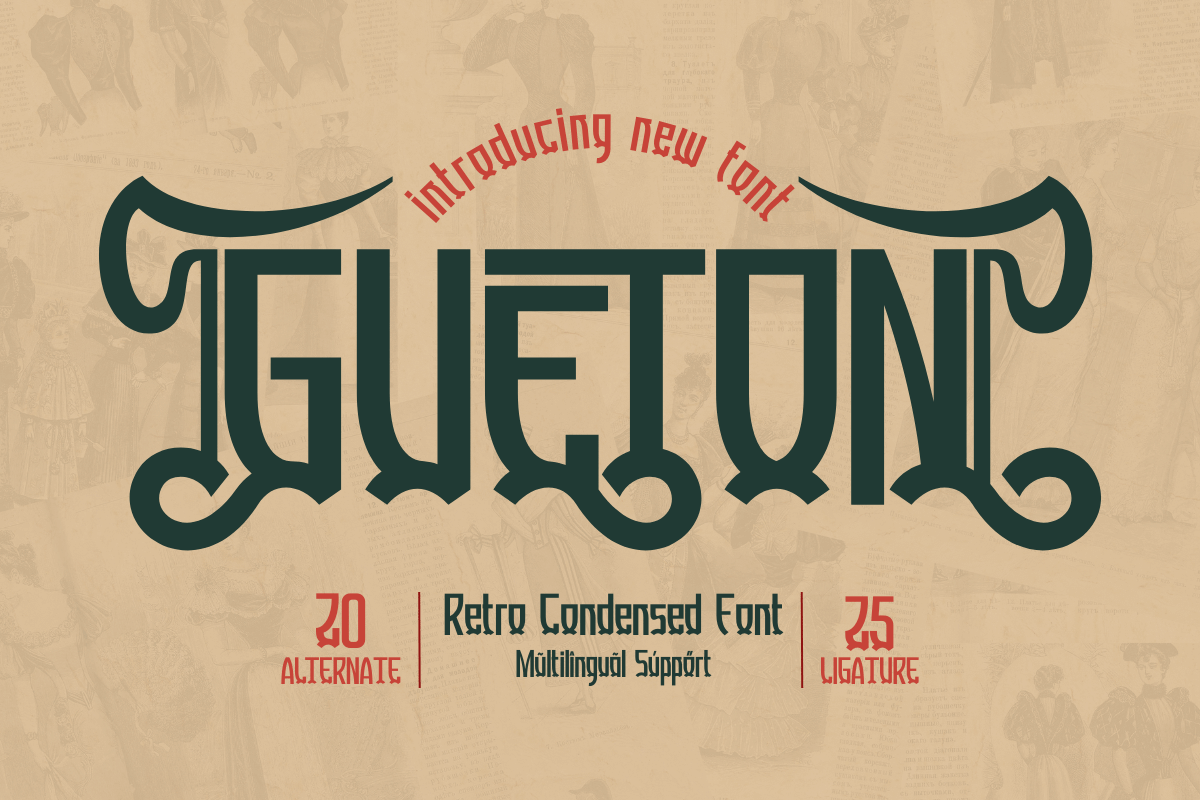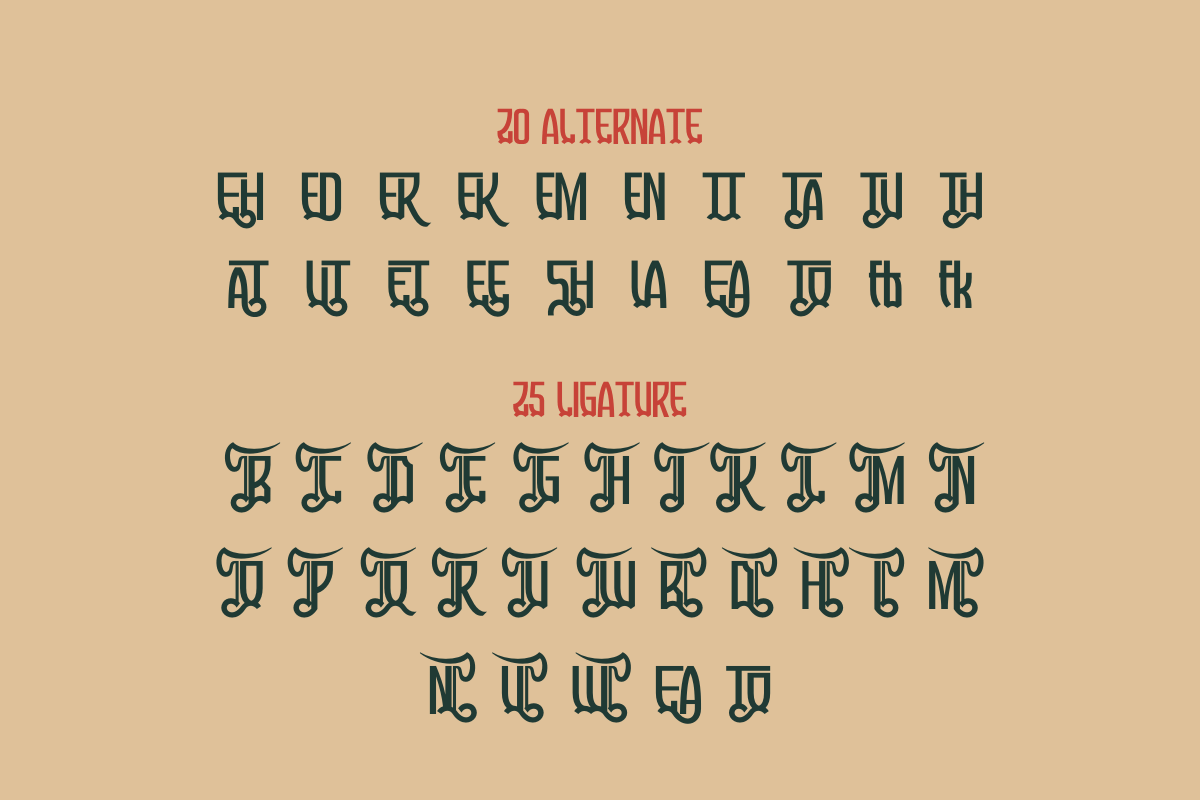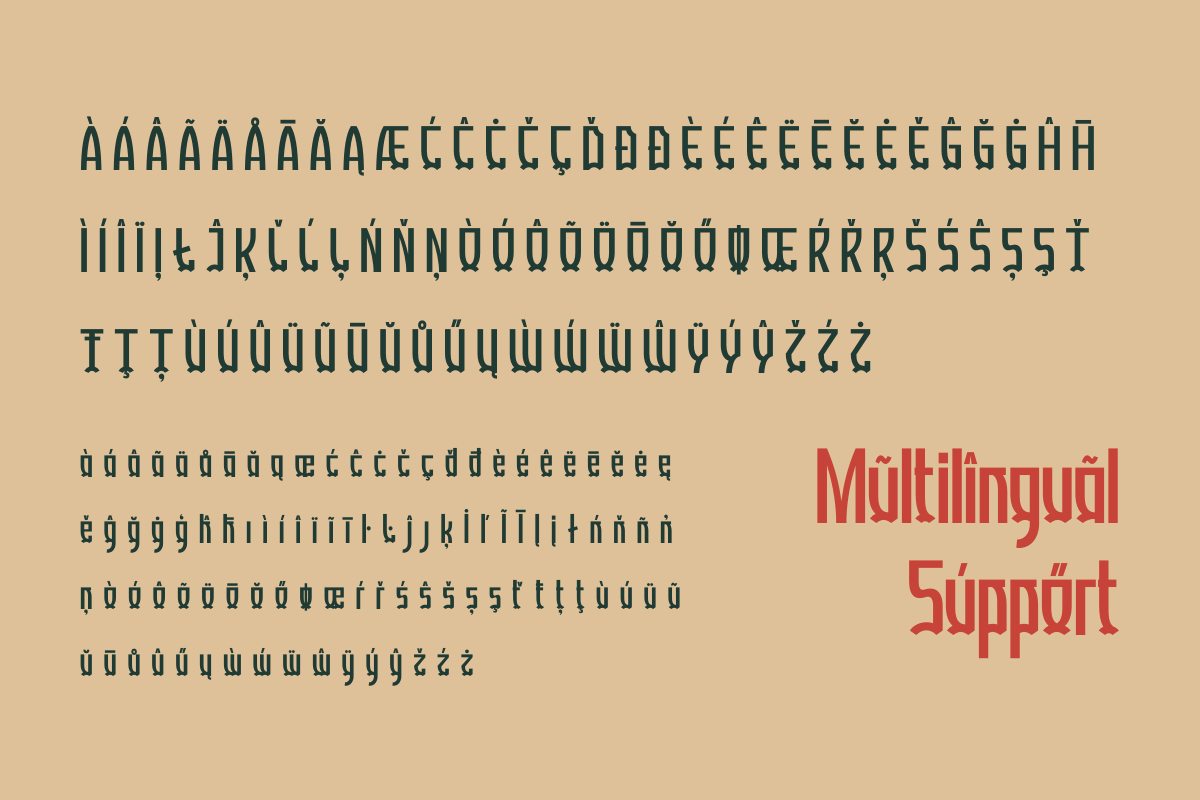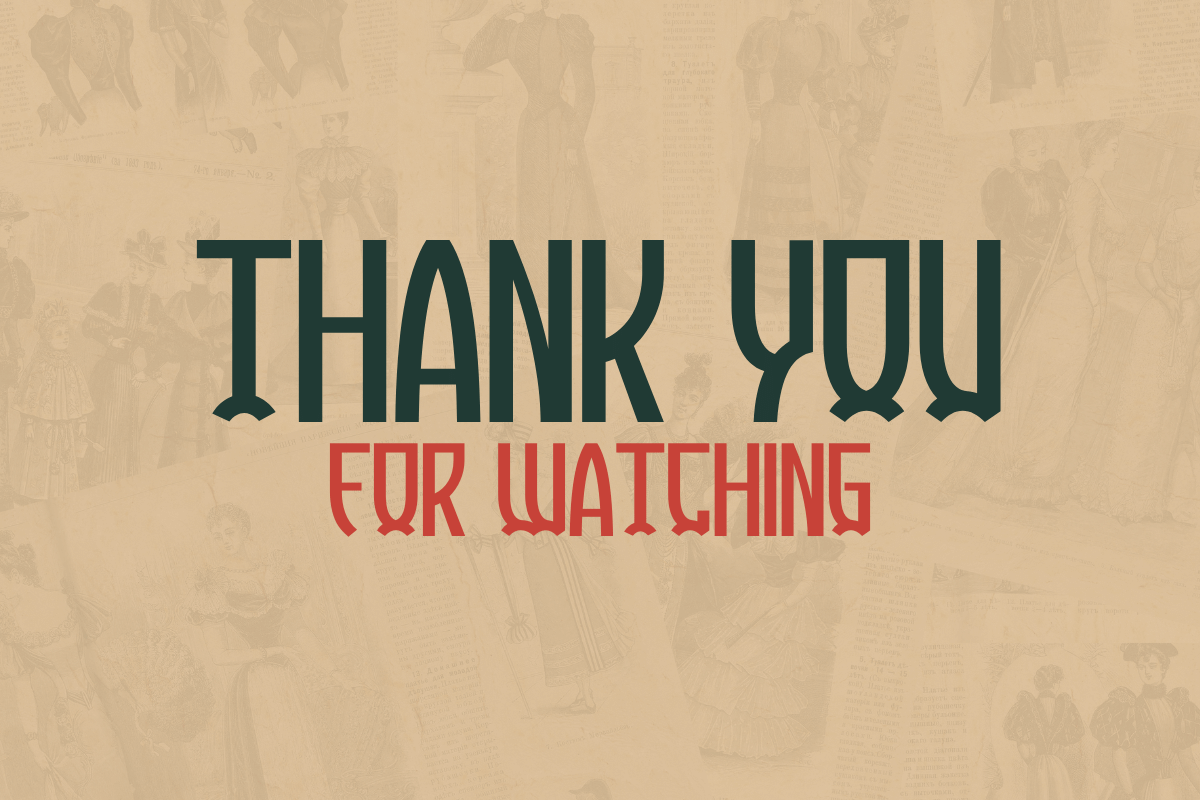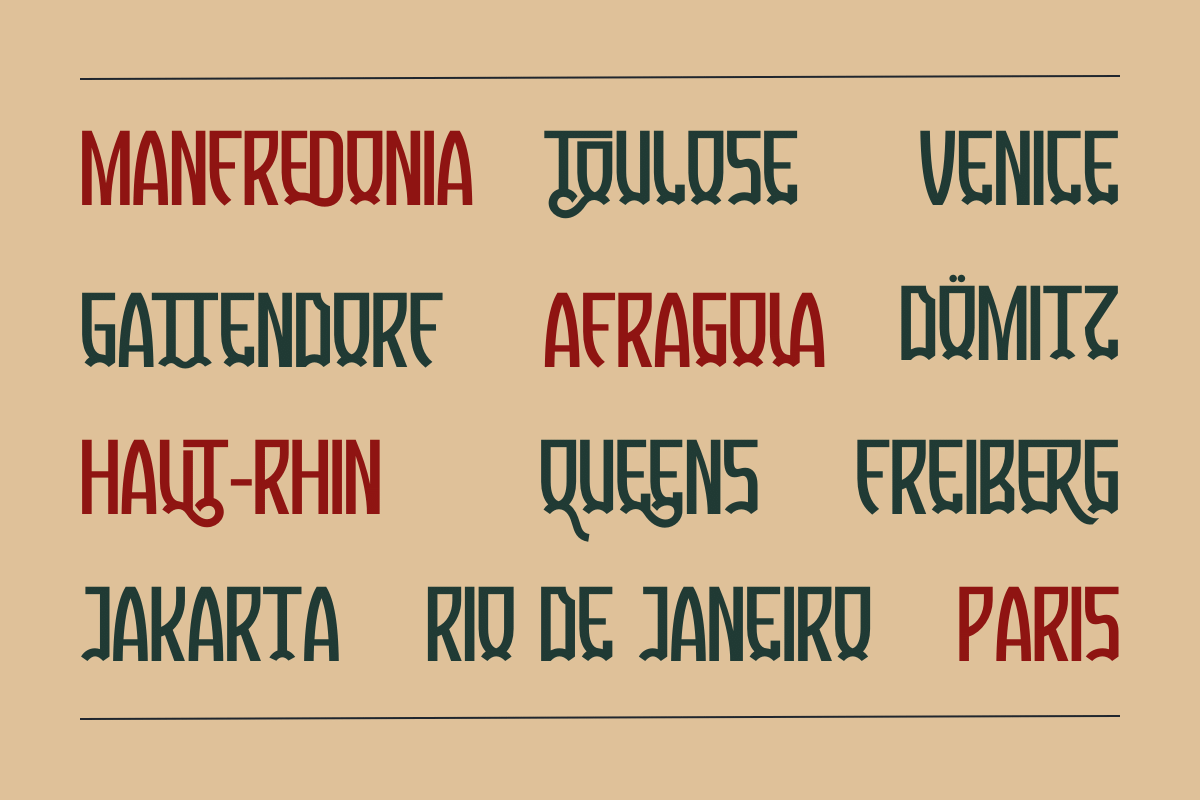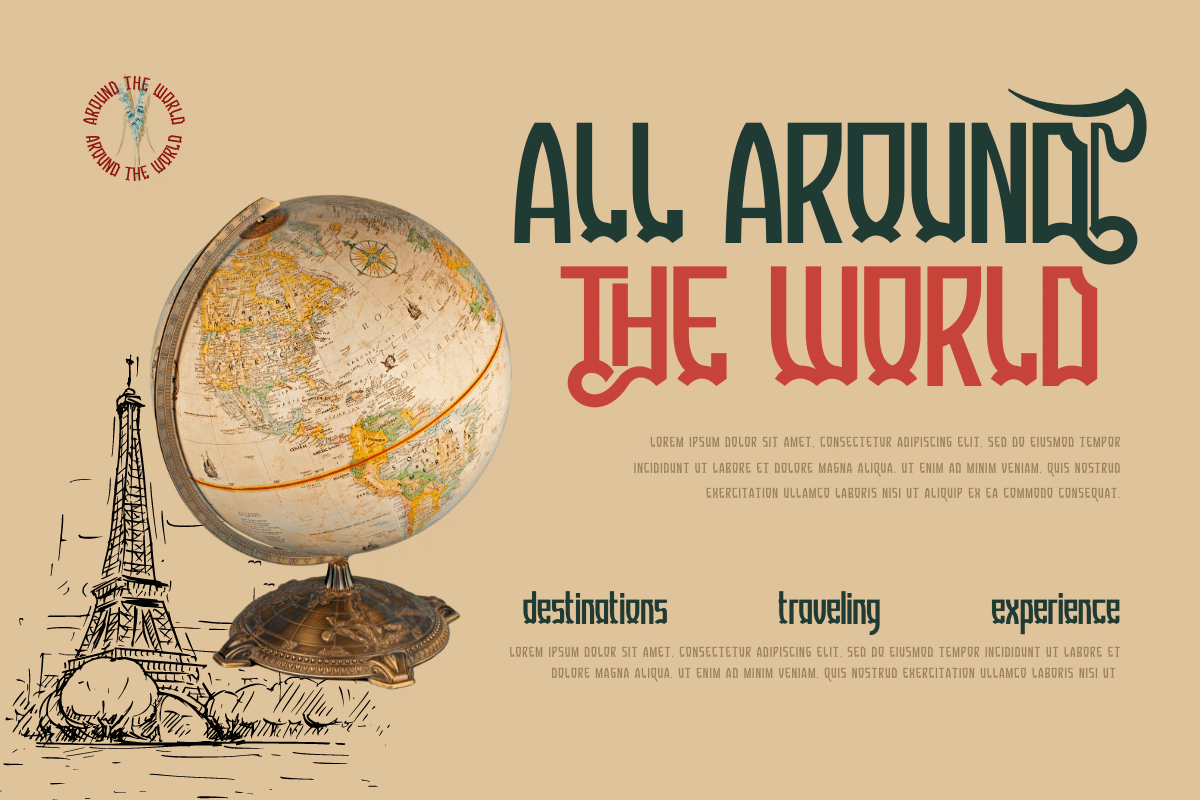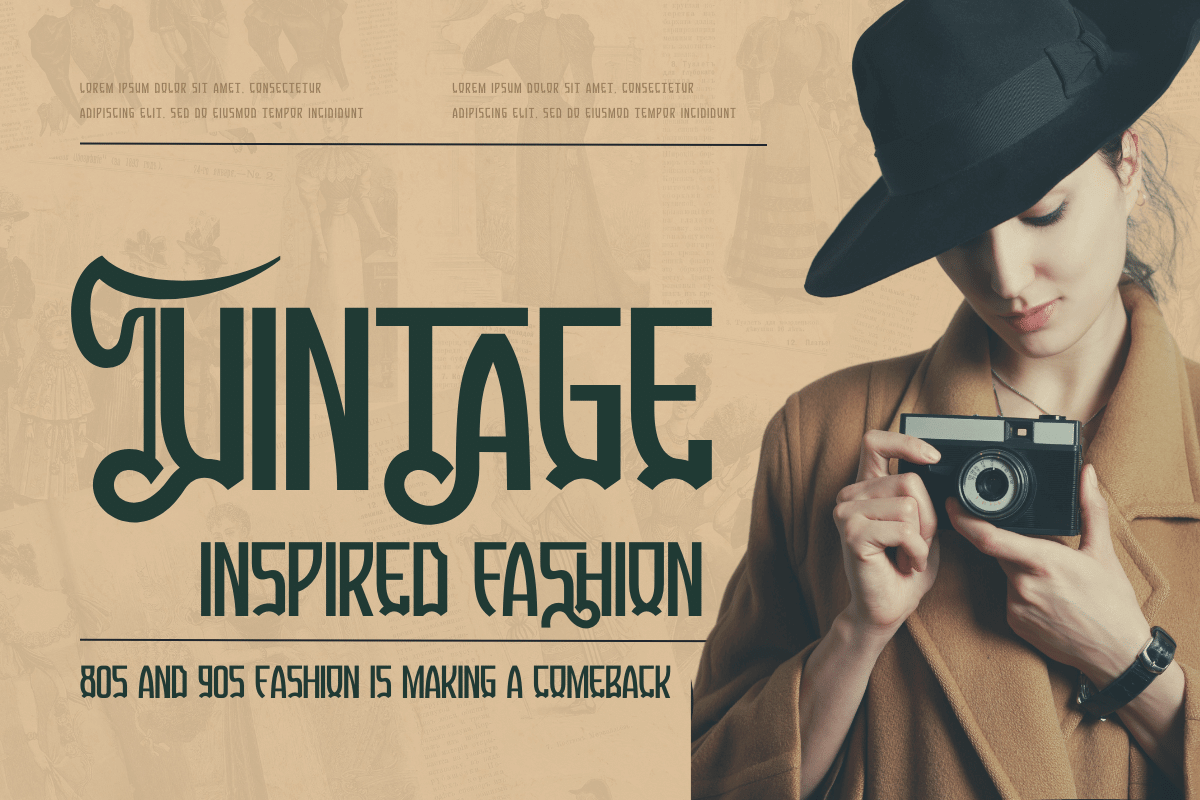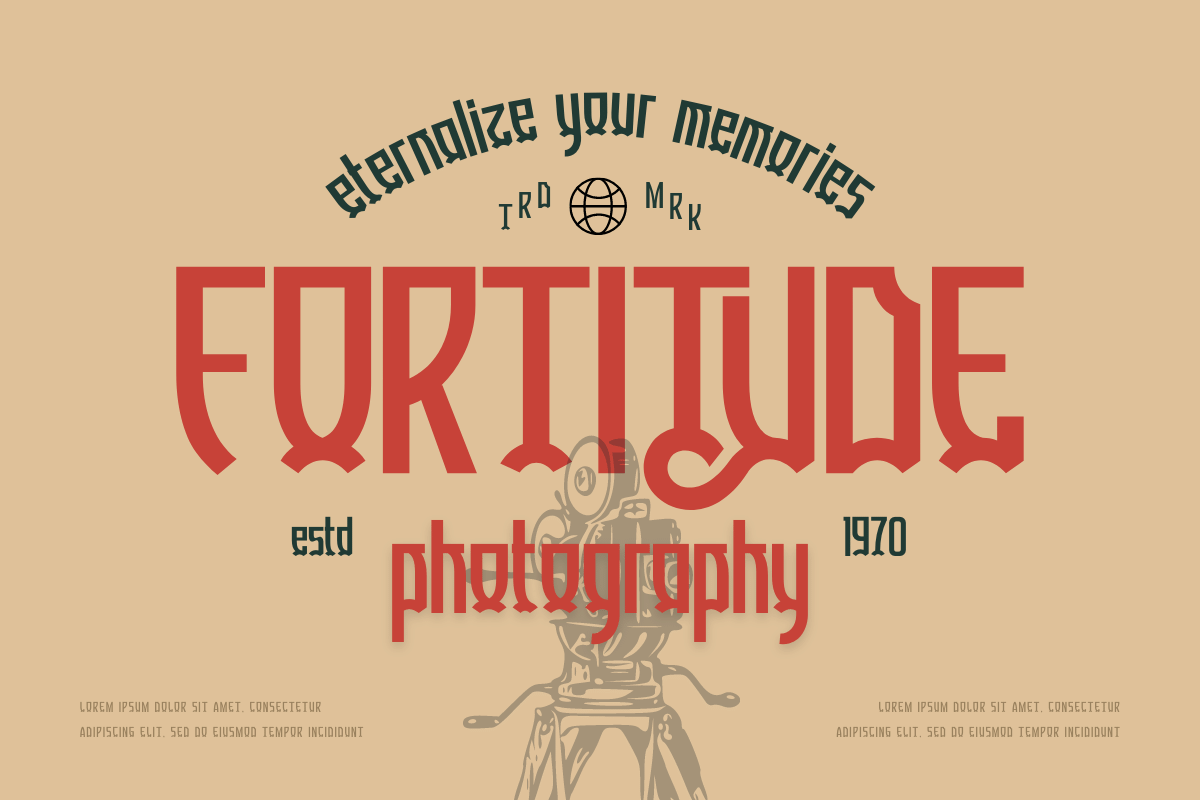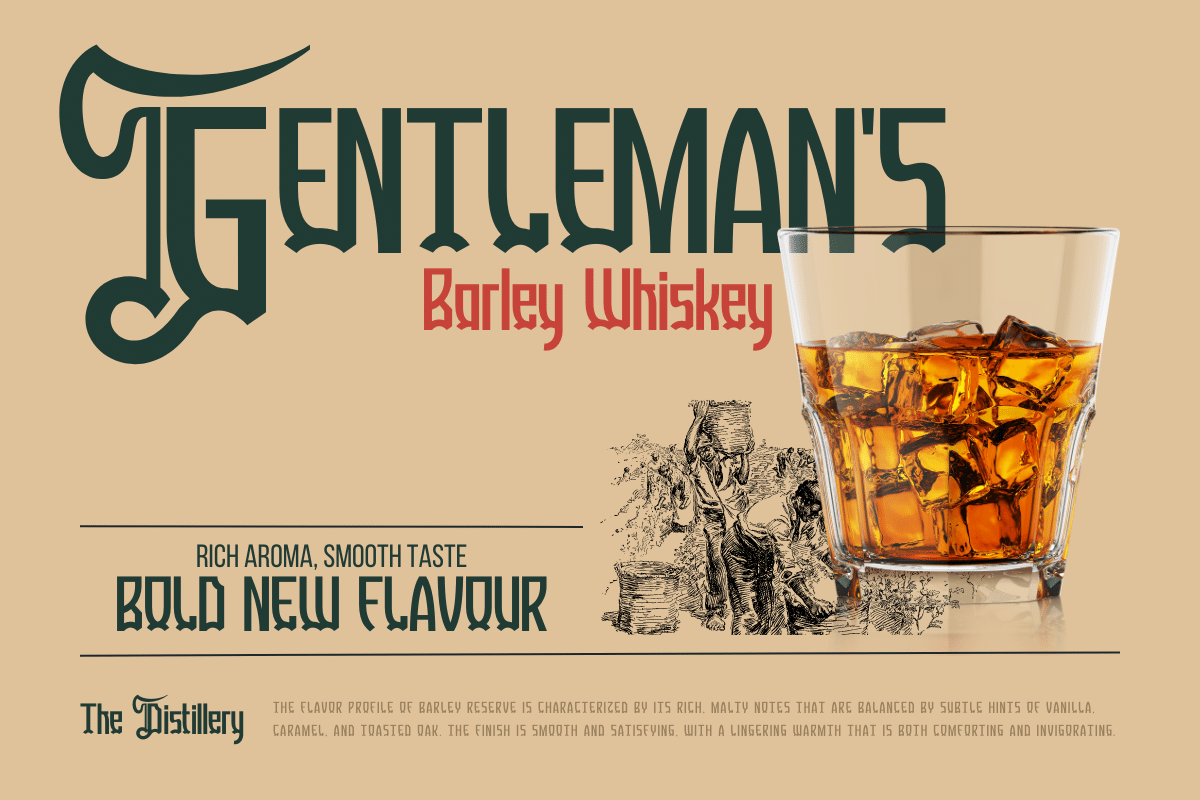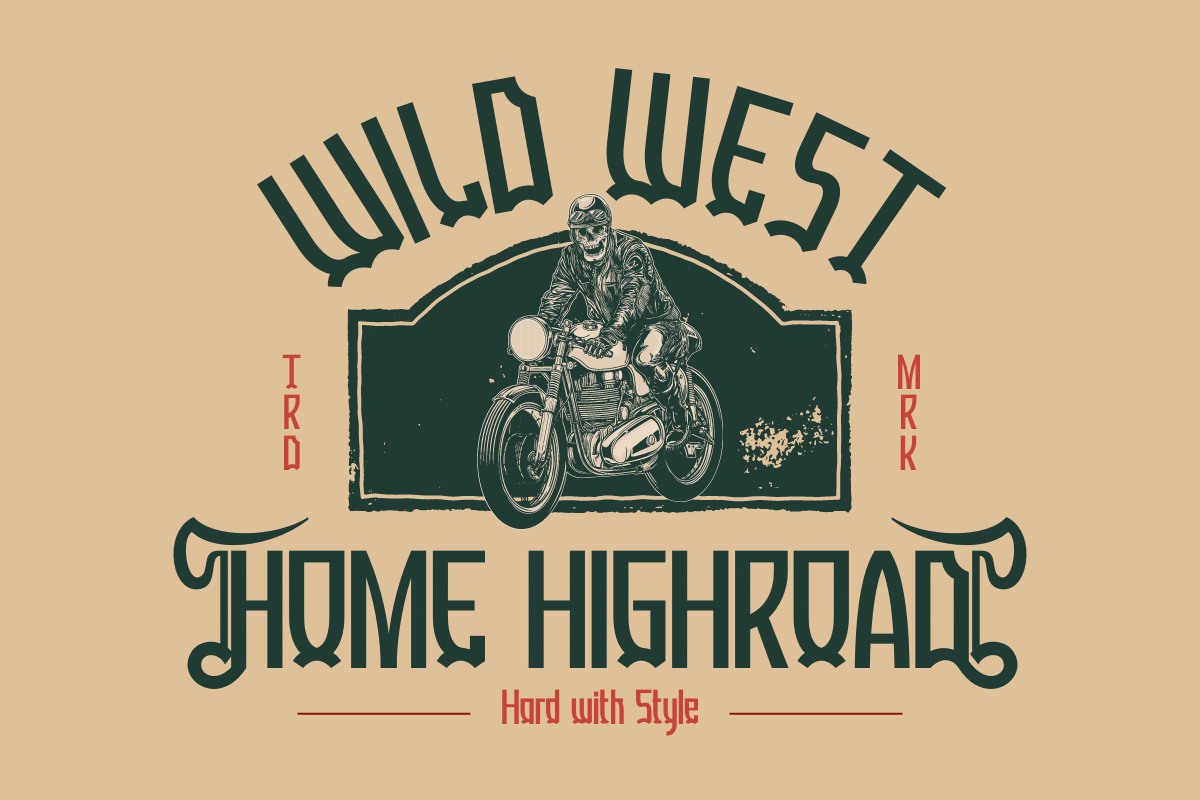
Gueton – Retro Condensed Font
Introducing Gueton, the retro condensed font that adds a classic touch to your designs. This font features a timeless and stylish retro look and comes with 20 alternate characters and 25 ligatures that beautifully complement its unique design. Whether you’re working on a vintage-inspired project or just want to add some nostalgic charm to your work, Gueton is a perfect choice.
Not only does Gueton offer stunning design features, but it also supports multiple languages, making it a versatile font for a wide range of projects. Whether you’re designing a logo, poster, or website, Gueton’s classic and modern blend will give your work a standout and professional look. Check out our collection now and elevate your designs with this elegant and sophisticated font.